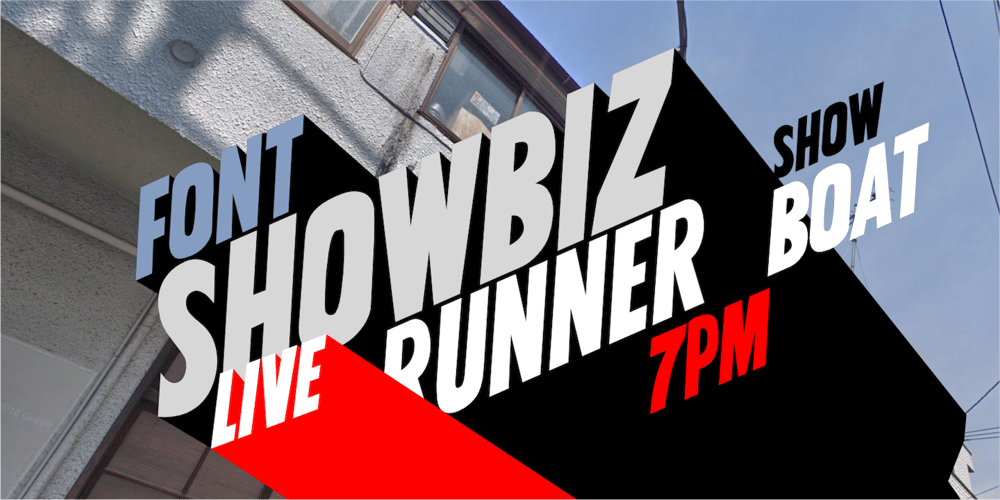
Wowbizz Font Family was designed by Wahyu Eka Prasetya, Afiat Sukmaraga and published by Hati. Wowbizz contains 2 styles and family package options. Introducing our Wowbizz font, latest font that commands attention with its bold, sharp, and dynamic design. This font embodies the spirit of industrial strength and modern sophistication, making it ideal for projects that require a powerful visual impact. Each character is meticulously crafted with precision, featuring angular lines and pointed edges that convey a sense of energy and movement. Perfect for headlines, branding, logos, and signage, this font delivers a strong and authoritative presence. Its all-capital letter design emphasizes clarity and dominance, ensuring that your message stands out in any context. Whether you’re designing for tech, manufacturing, or contemporary advertising, this font’s robust and industrial aesthetic will enhance your work with a confident and assertive tone.Please note, most image in cover sample use ‘oblique’ version.